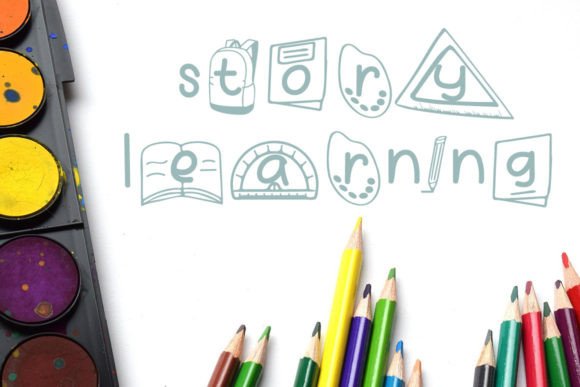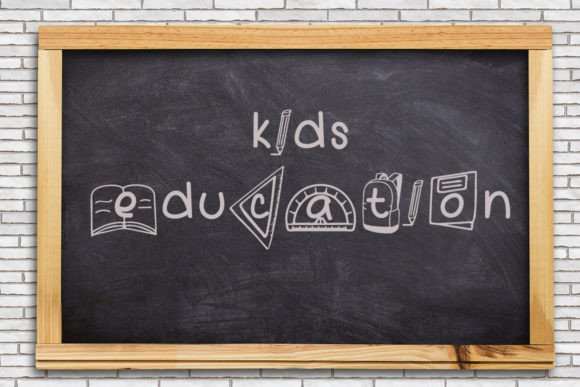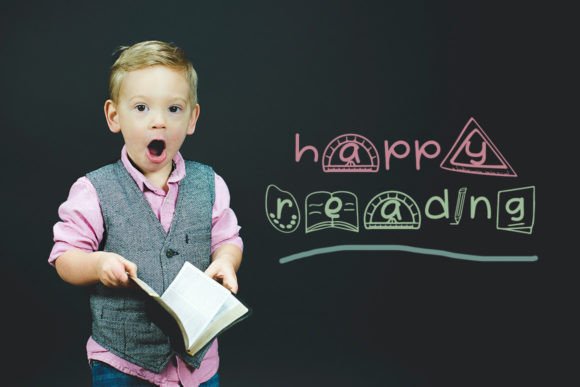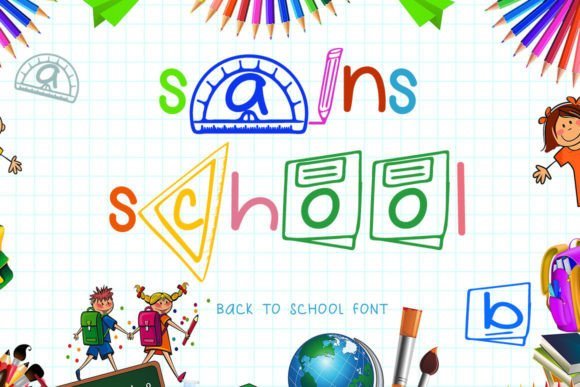
Introduction to Sains School Font
Sains School is a beautiful and sweet font.
It is fresh, clean, and elegant This font will look amazing in a great number of projects, both formal and informal.
Why Choose Sains School Font?
Sains School Font offers exceptional quality and versatility, making it a valuable addition to your design toolkit. Whether you’re creating for personal projects or commercial use, Sains School Font delivers professional results.